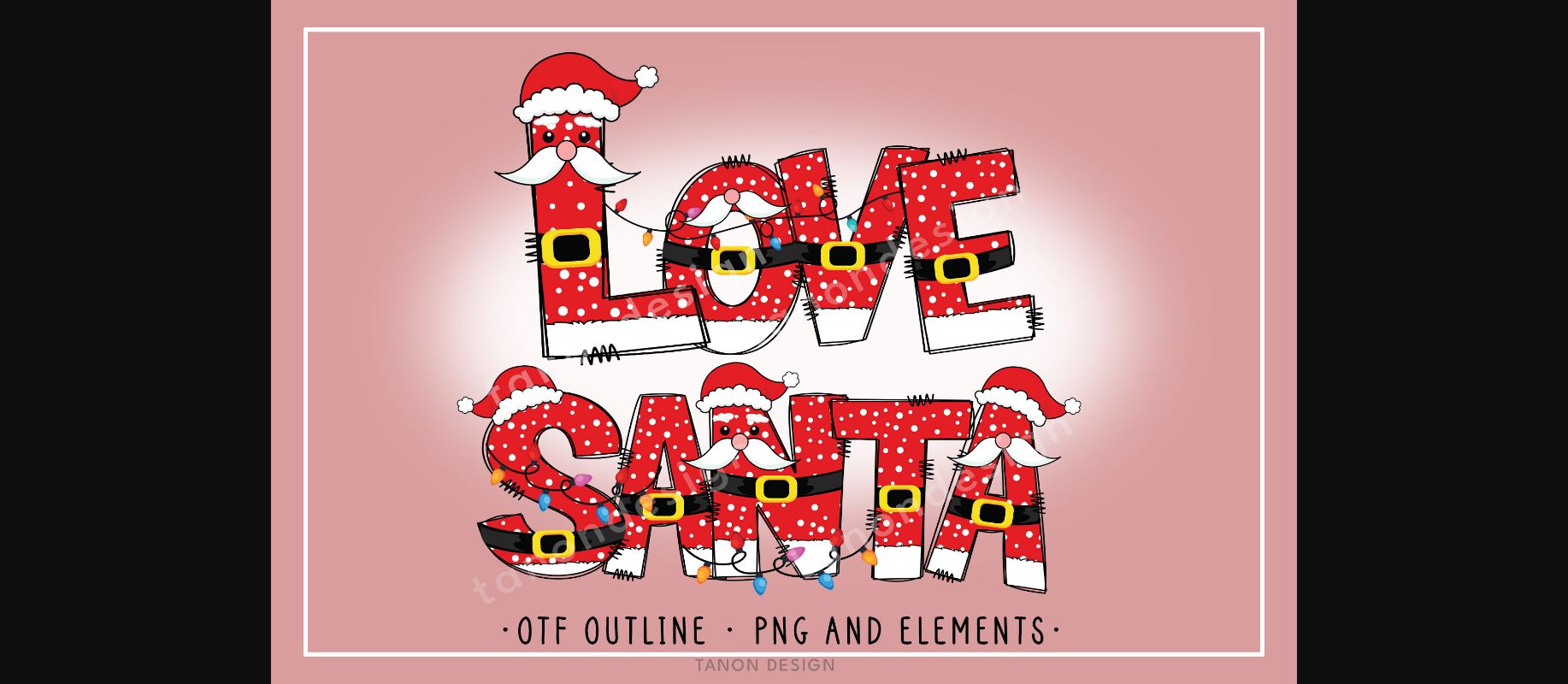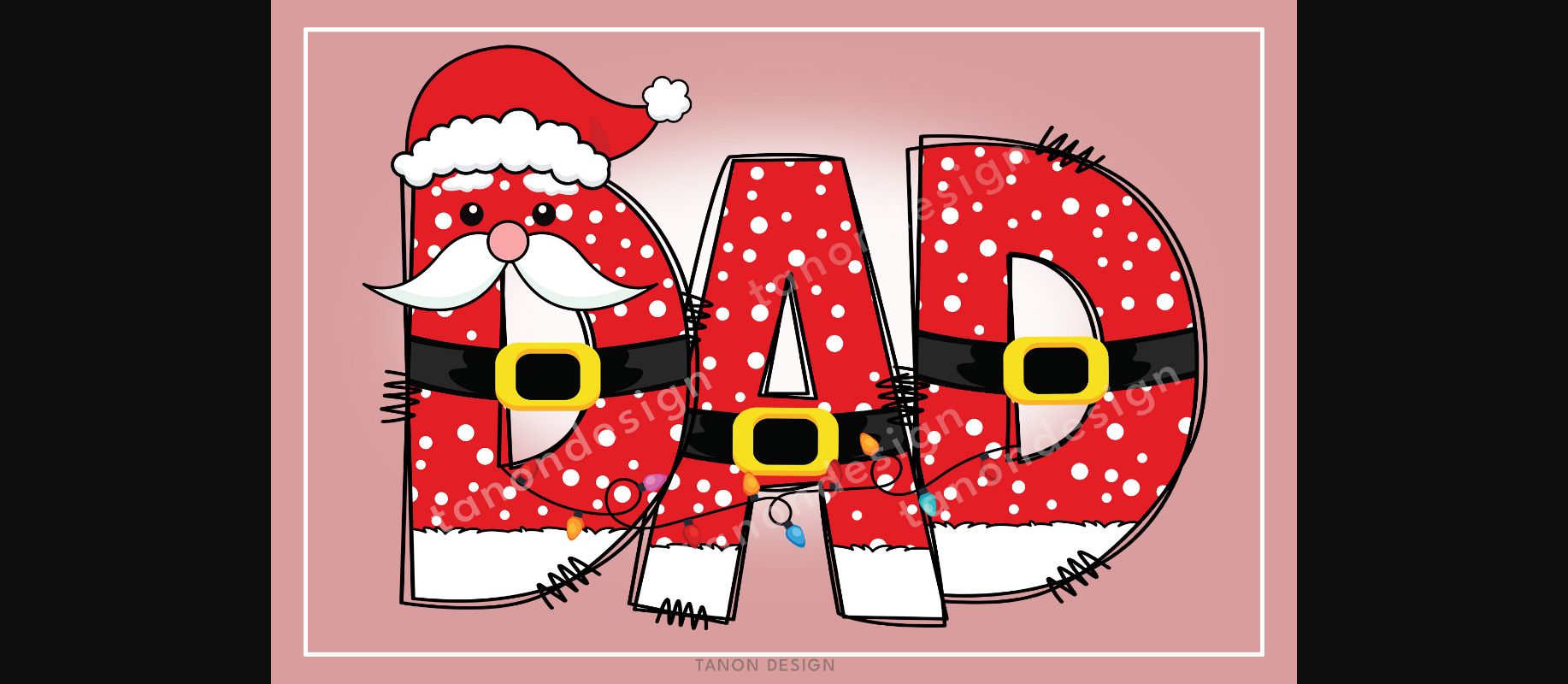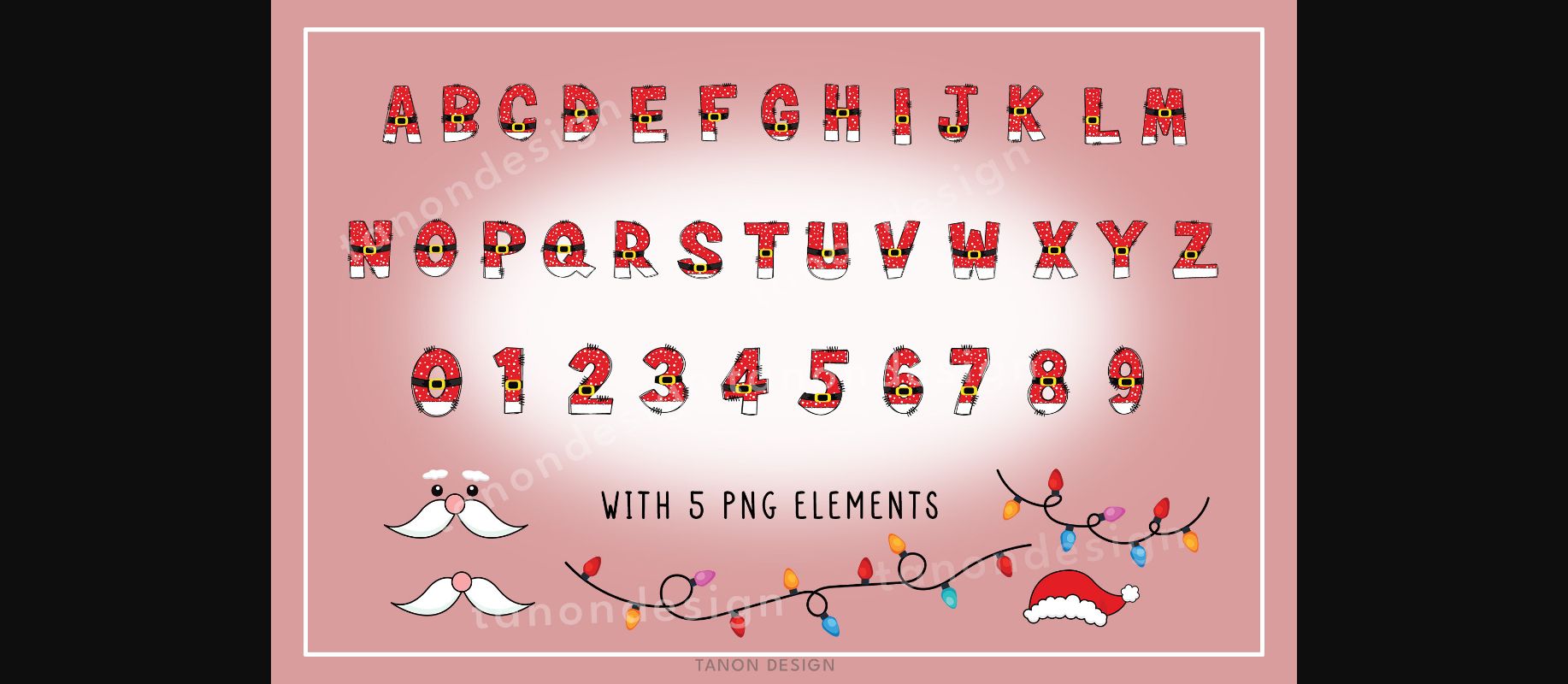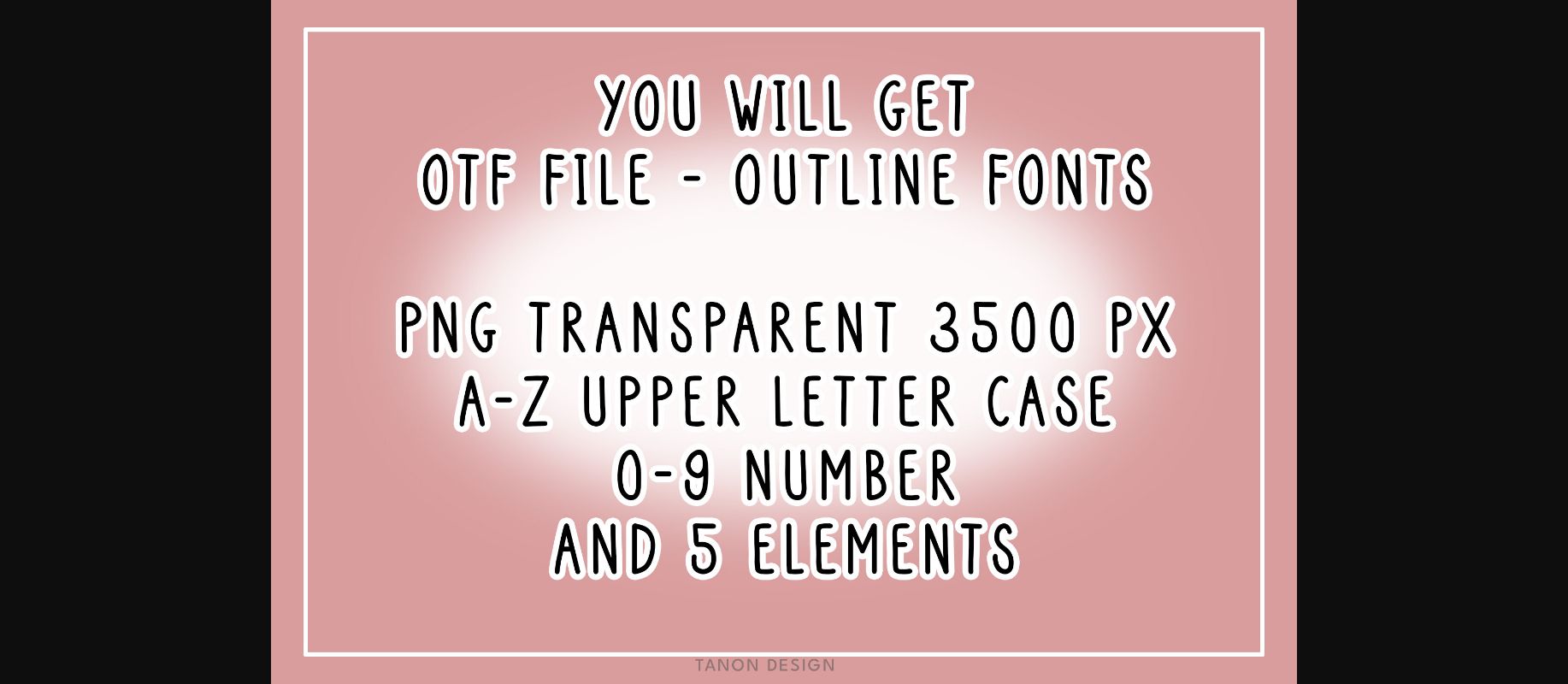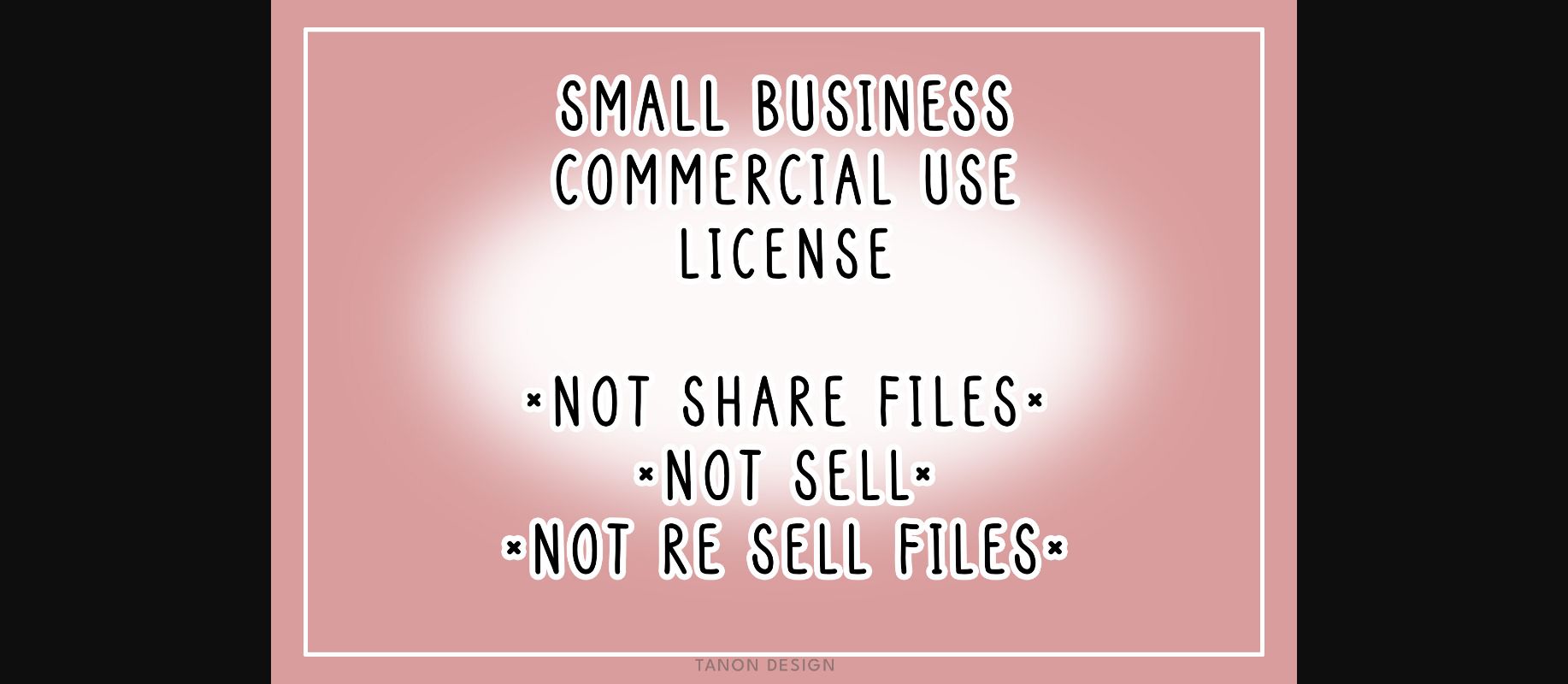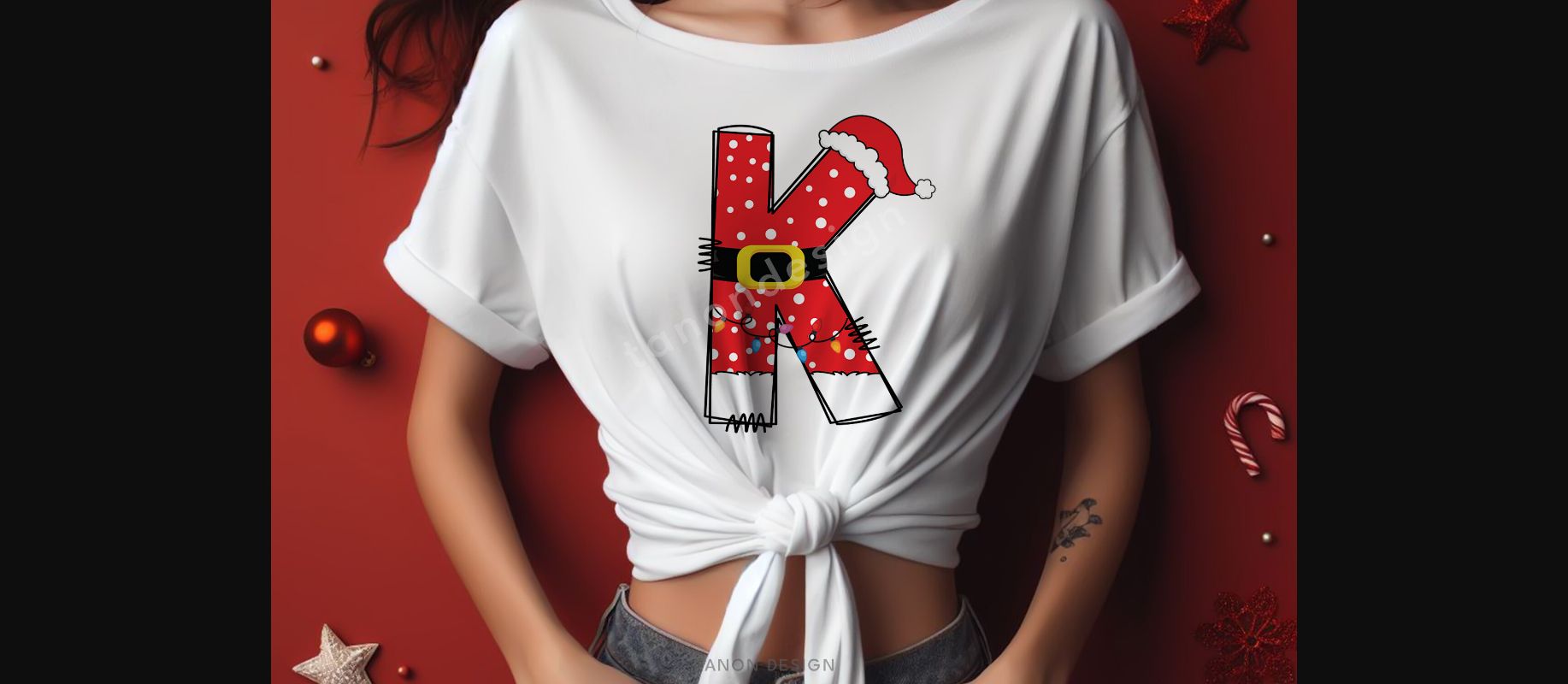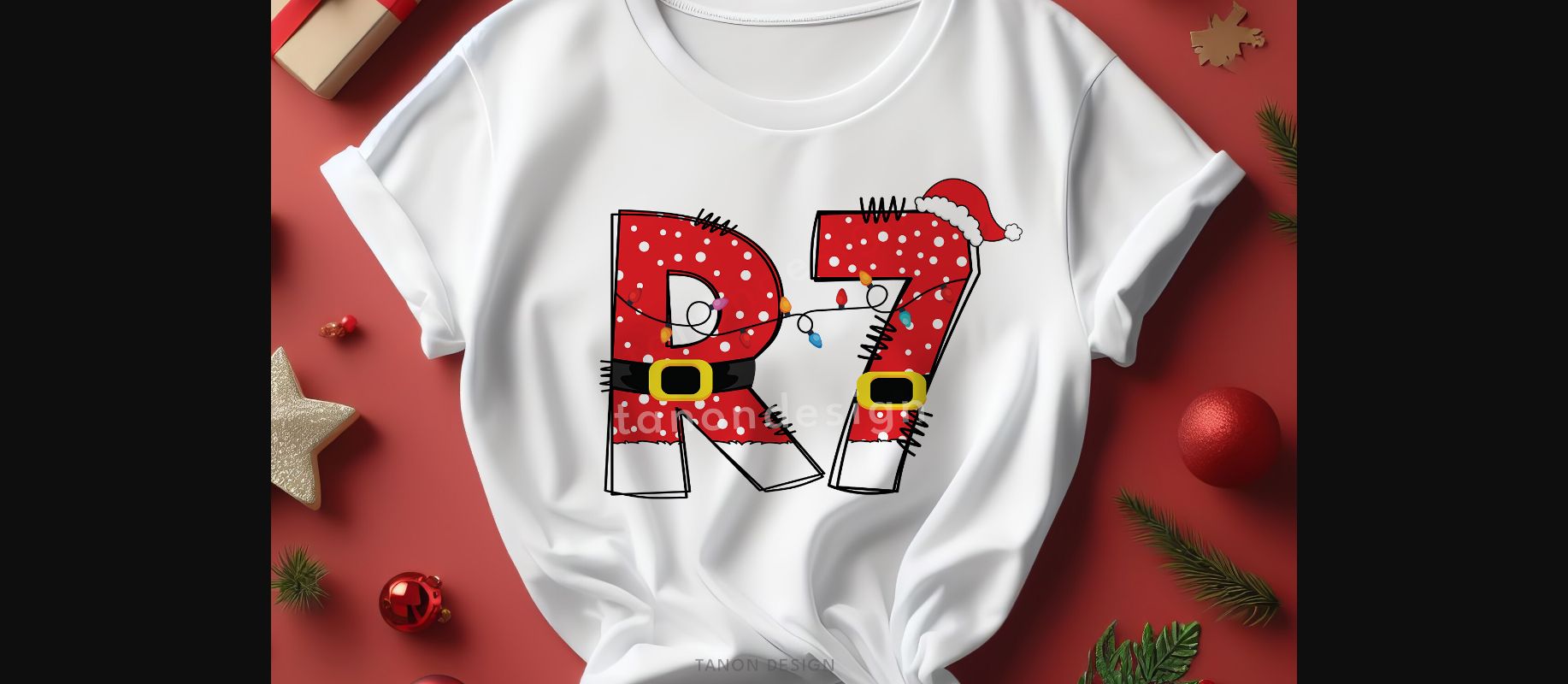
Love Santa Font
“Love Santa” is a delightful color font that adds a touch of festive charm to your text. Each letter is playfully adorned with Santa Claus outfits, complete with tiny Santa hats, creating a joyful and merry atmosphere for your designs. Perfect for spreading holiday cheer and warmth in your creative projects!